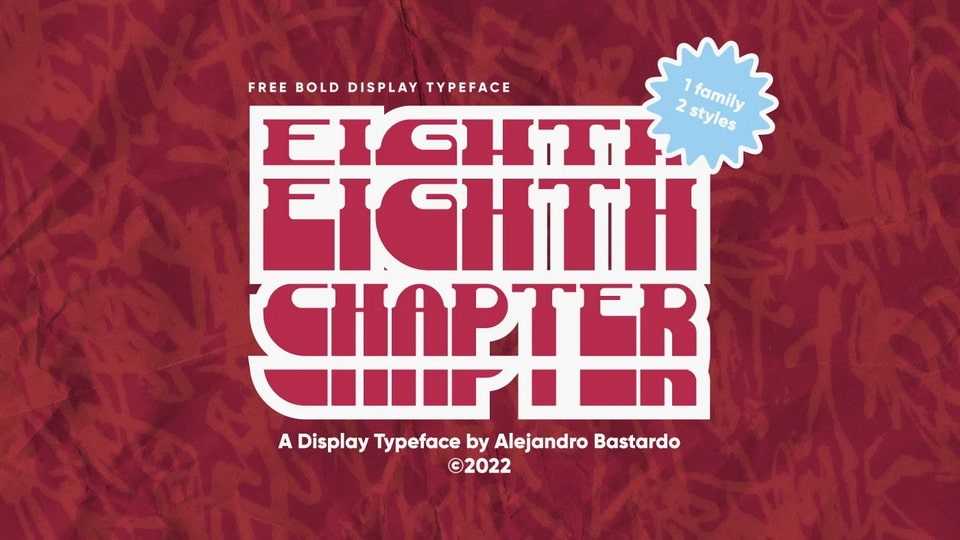
Download Eight Chapter font, a decorative typeface with a dynamic, artistic and modern style for your projects that are extremely heavy. Eight Chapter font is perfect for any typography or graphic design project that calls for a strong and striking mood.
Designer: Alejandro Bastardo